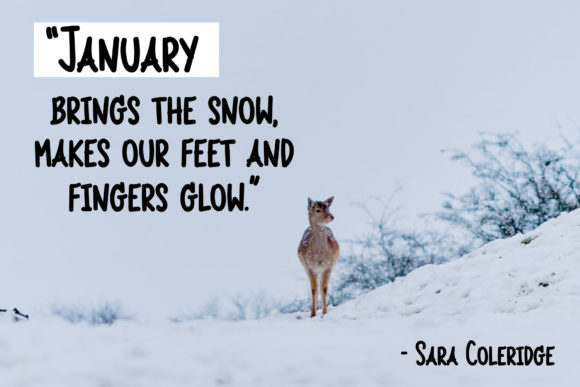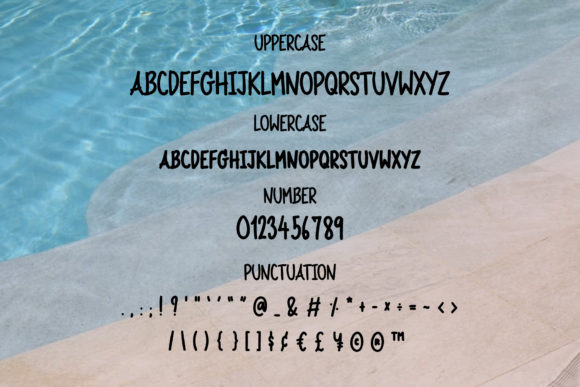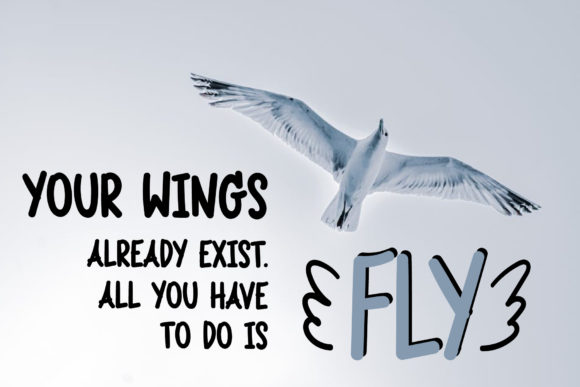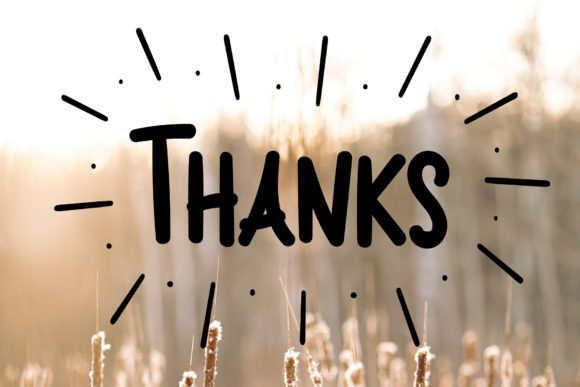
Lockdown Font
About Lockdown Font
Lockdown is a font that exudes simplicity, playfulness, and a chunky charm in its delightful lettered handwritten style. With its unedited and quirky appeal, this font becomes the perfect choice for adding a touch of uniqueness and liveliness to your creations, making them truly come alive.
The simple, sloppy, and chunky lettered handwritten style of Lockdown brings a sense of authenticity and genuine character to your designs. Each letter carries the carefree and artistic touch of handwritten script, making your work stand out with a touch of playful charm and warmth.
With Lockdown as your creative tool, you have the freedom to infuse your creations with a sense of fun and liveliness. Whether you’re working on projects that require a bold and carefree vibe, crafting designs with a touch of playfulness, or adding a quirky element to your work, Lockdown adapts effortlessly to bring a sense of versatility and charm to your designs.
Embrace the unedited and chunky style of Lockdown and witness how it transforms your creations into delightful works of art. Its carefree and playful nature adds a touch of originality, making your designs truly captivating and endearing.
Discover the joy of creating with Lockdown as your trusted companion. Let its lettered handwritten appearance be the key to unlocking your creativity and infusing your work with a sense of uniqueness and liveliness.
Whether you’re designing for personal projects or professional endeavors, Lockdown is the font that adds that extra touch of flair and charm to your creations. Embrace the simplicity and chunky charm of Lockdown and notice how it enhances the appeal and impact of your designs, making them truly special and unforgettable.
Let Lockdown be the font that sparks your inspiration and brings a touch of playfulness and originality to your designs. Experience the magic of Lockdown and witness how it elevates your creative projects, making them truly vibrant and filled with a sense of authentic charm and liveliness.